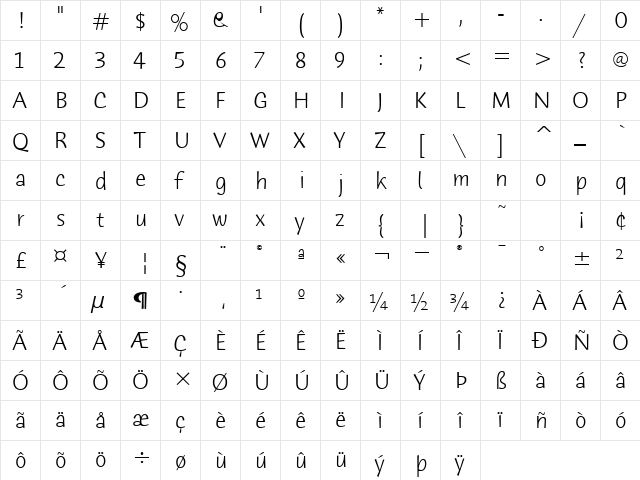
Humana Sans ITC TT Light Font Preview
Humana Sans ITC TT Light
Design Context for Humana Sans ITC TT Typeface
Humana Sans ITC TT is a composed and adaptable typeface that performs quietly and consistently across a wide range of design contexts. The delicate stroke weight brings airiness and refinement to layouts.